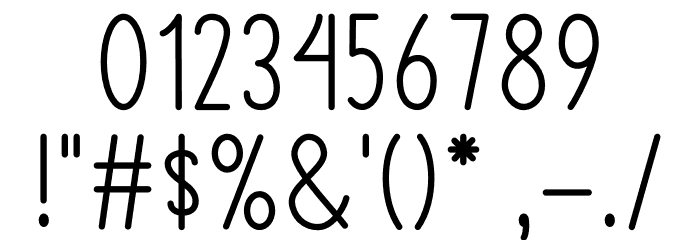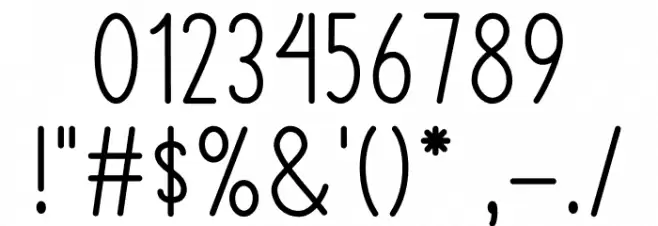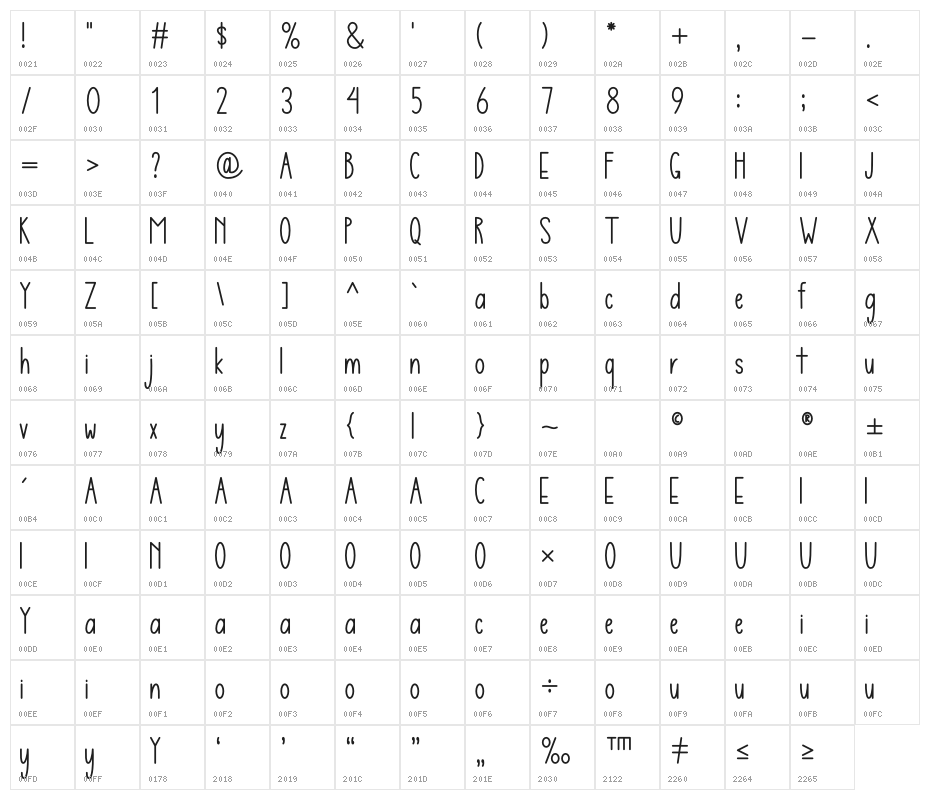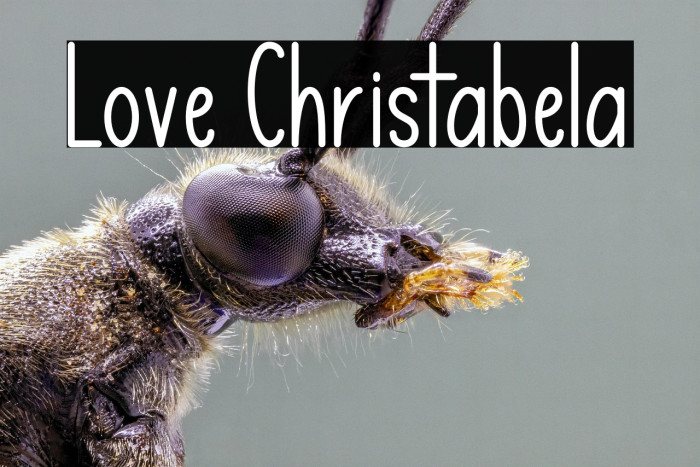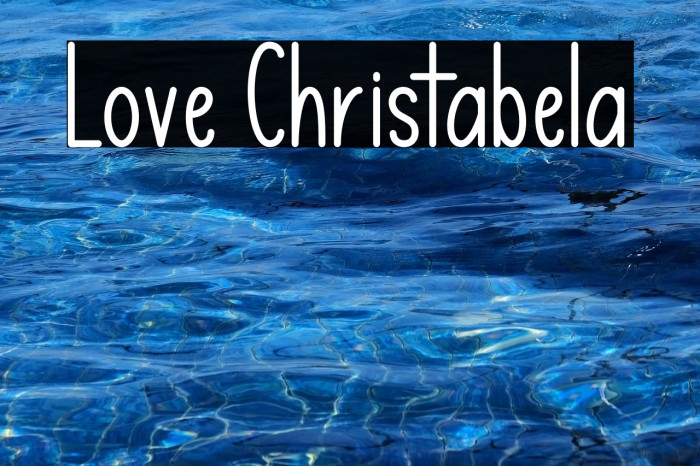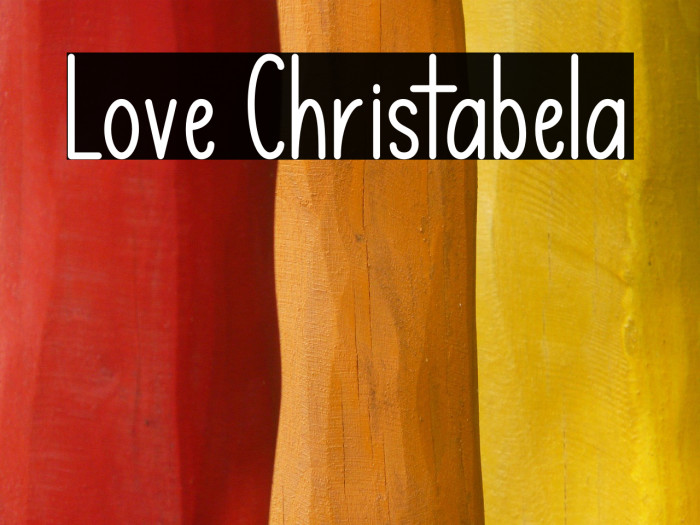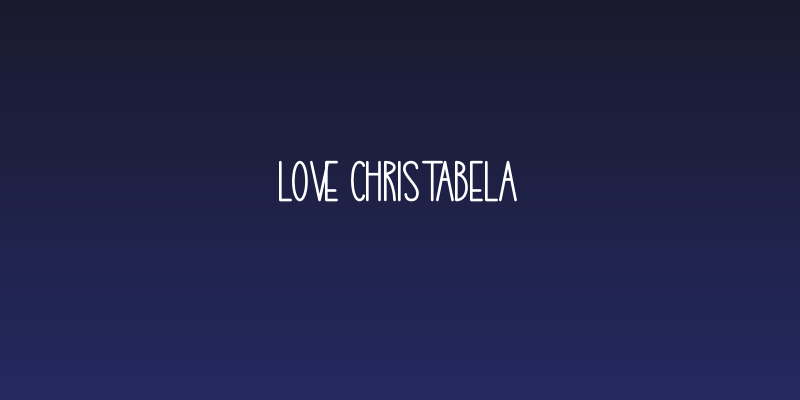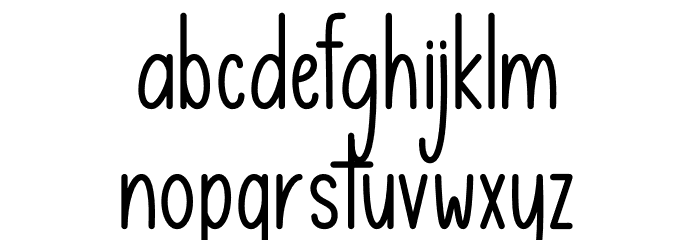
Love Christabela Font
Love Christabela Description
This font features a playful and whimsical style with tall, narrow letters that have a hand-drawn appearance. The uppercase letters are uniform in height, while the lowercase letters maintain a consistent baseline with slight variations in height, adding to the casual feel. The numerals are clean and easy to read, matching the overall aesthetic. Special characters are included, maintaining the same playful and approachable design. The strokes are consistent in width, providing a cohesive look across all characters.